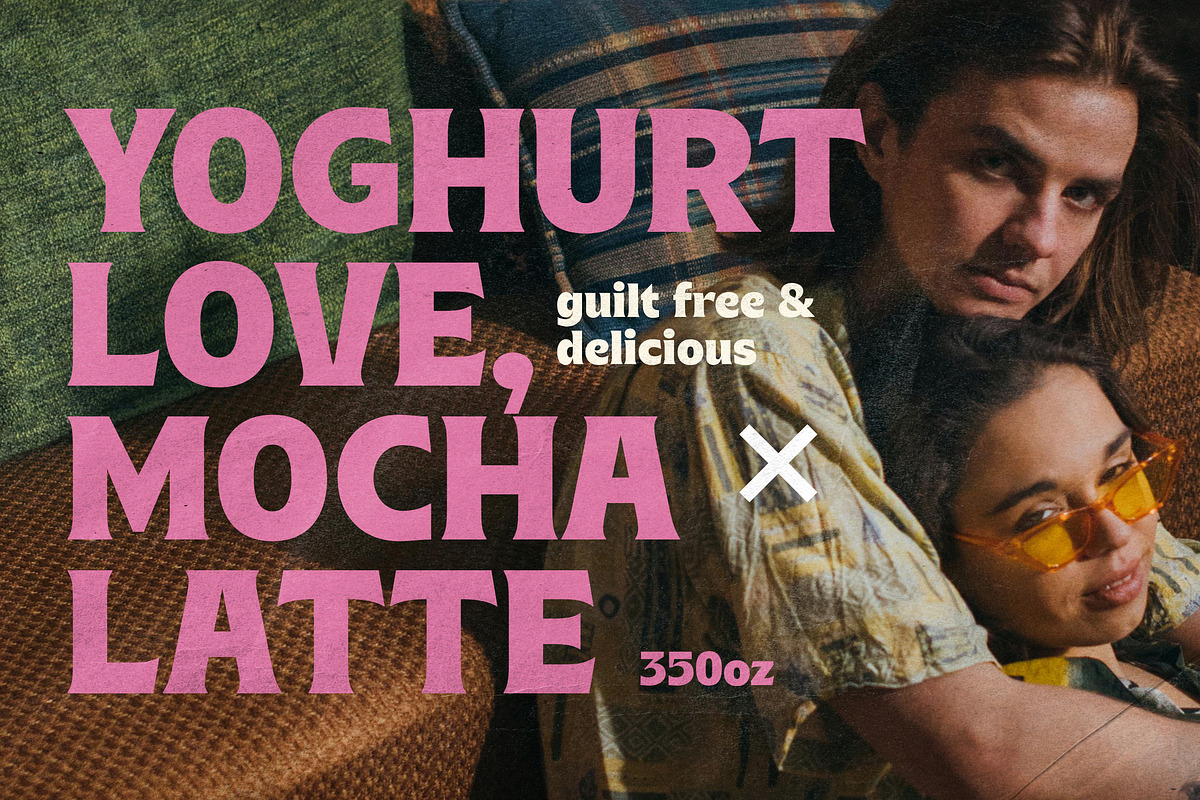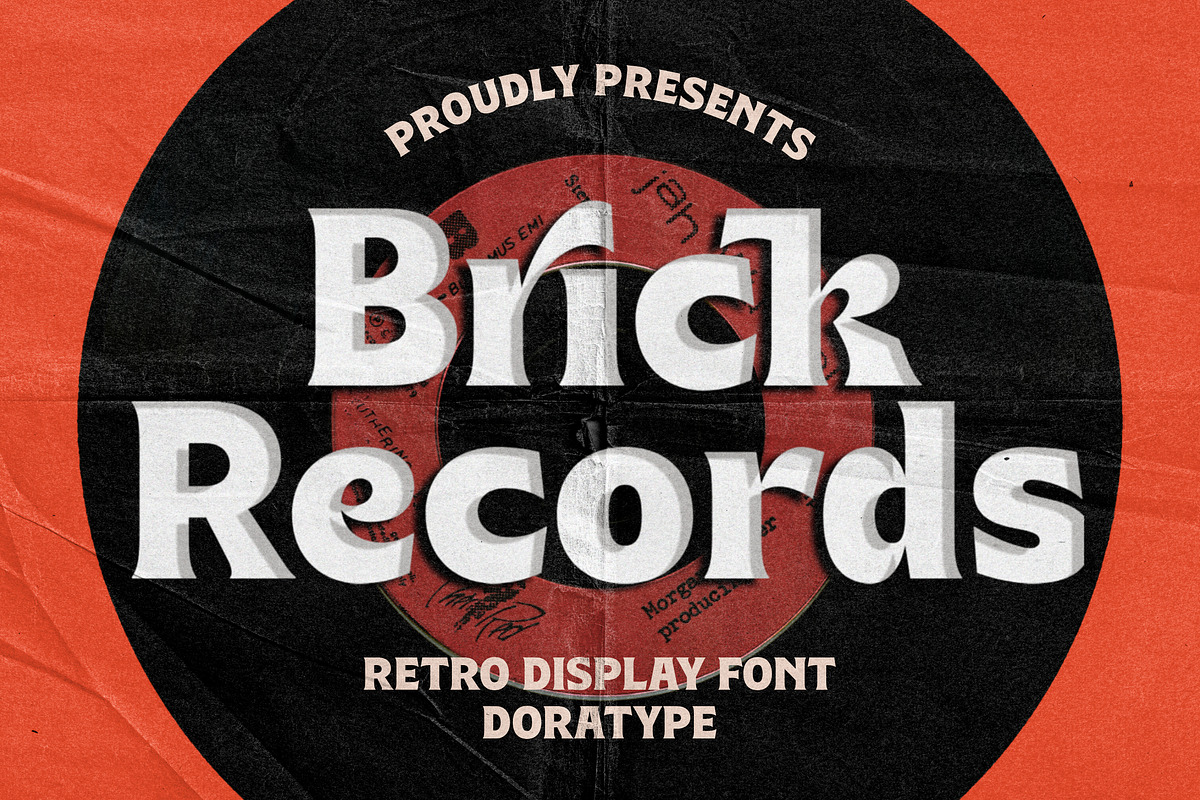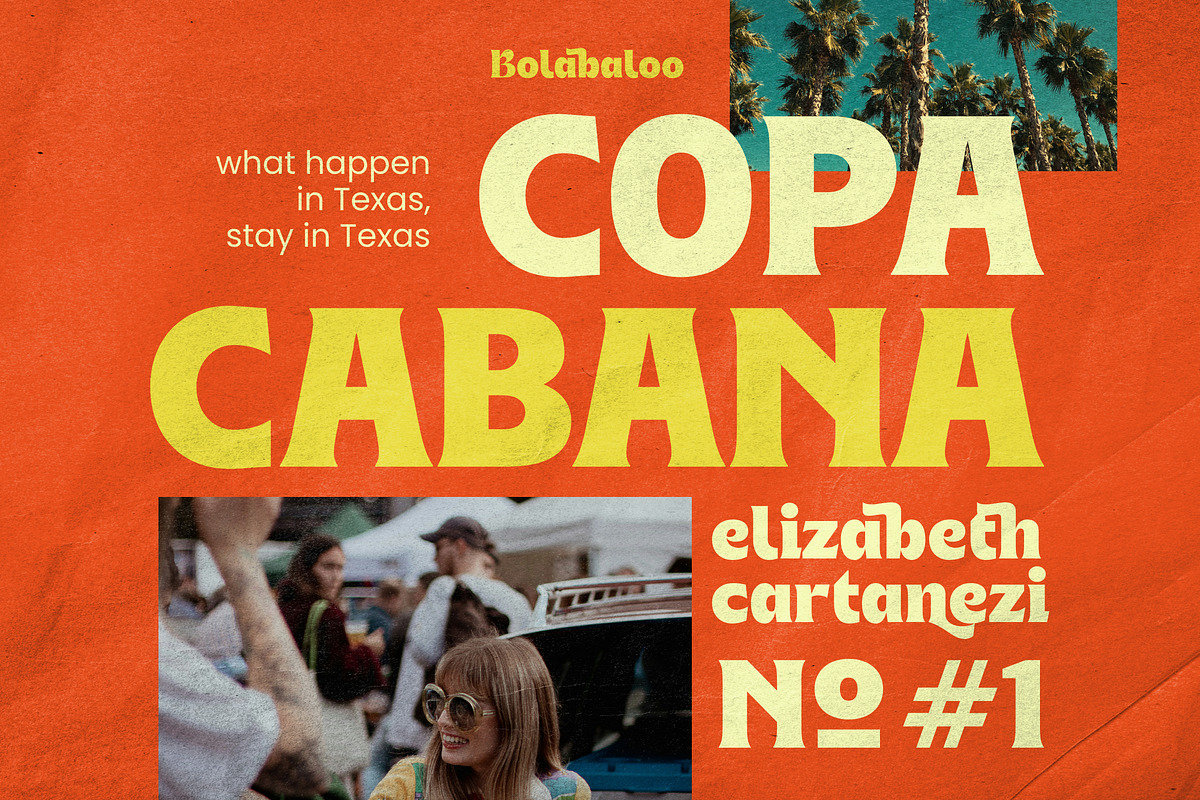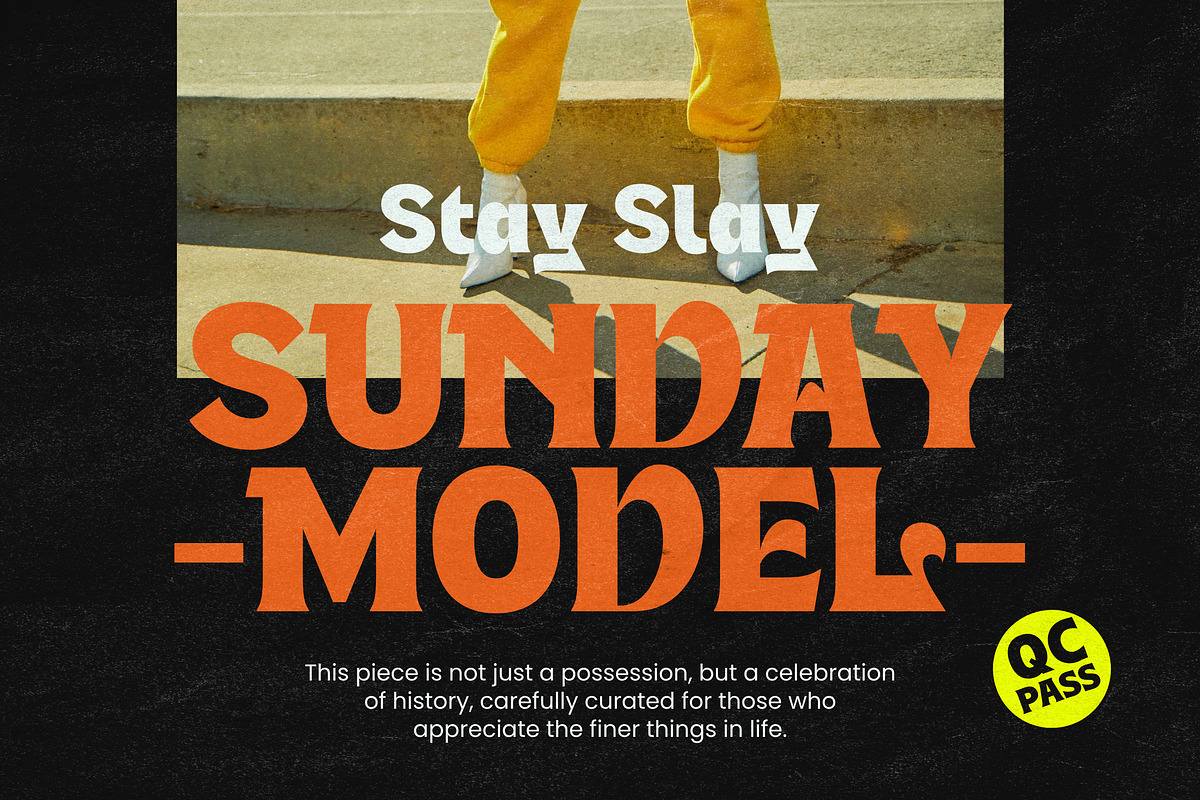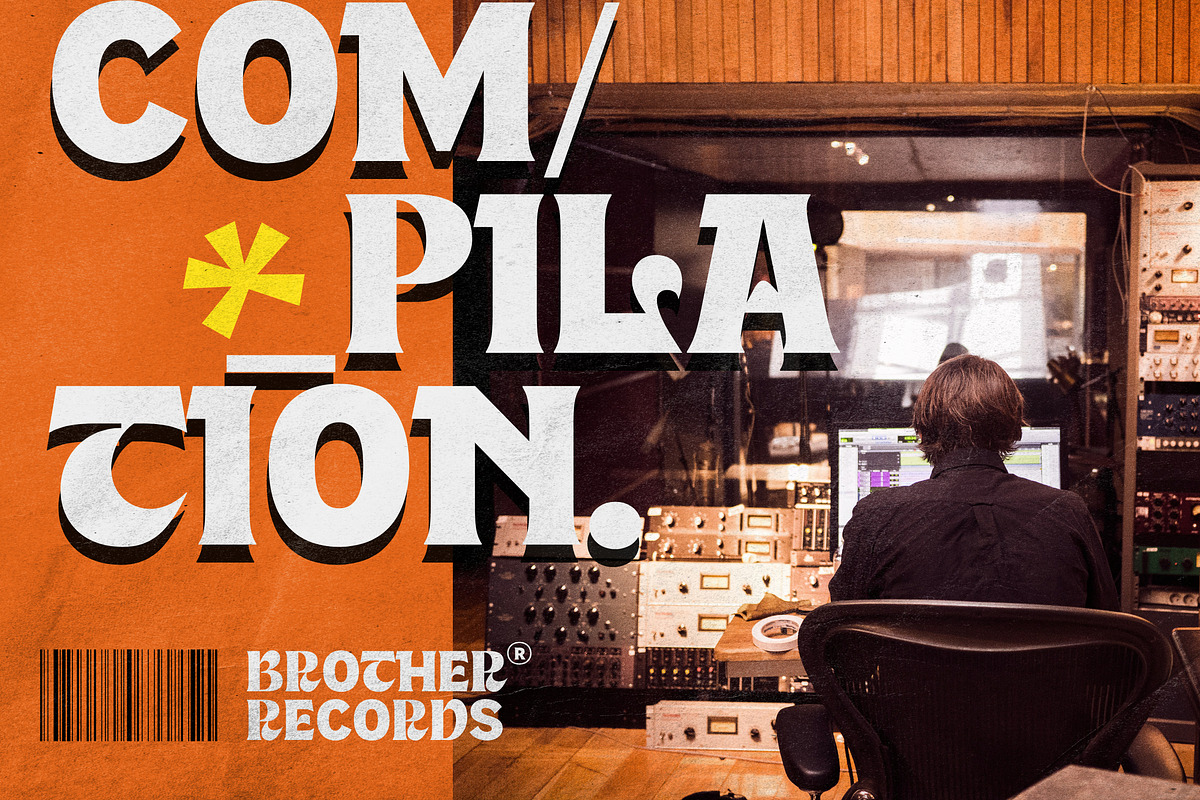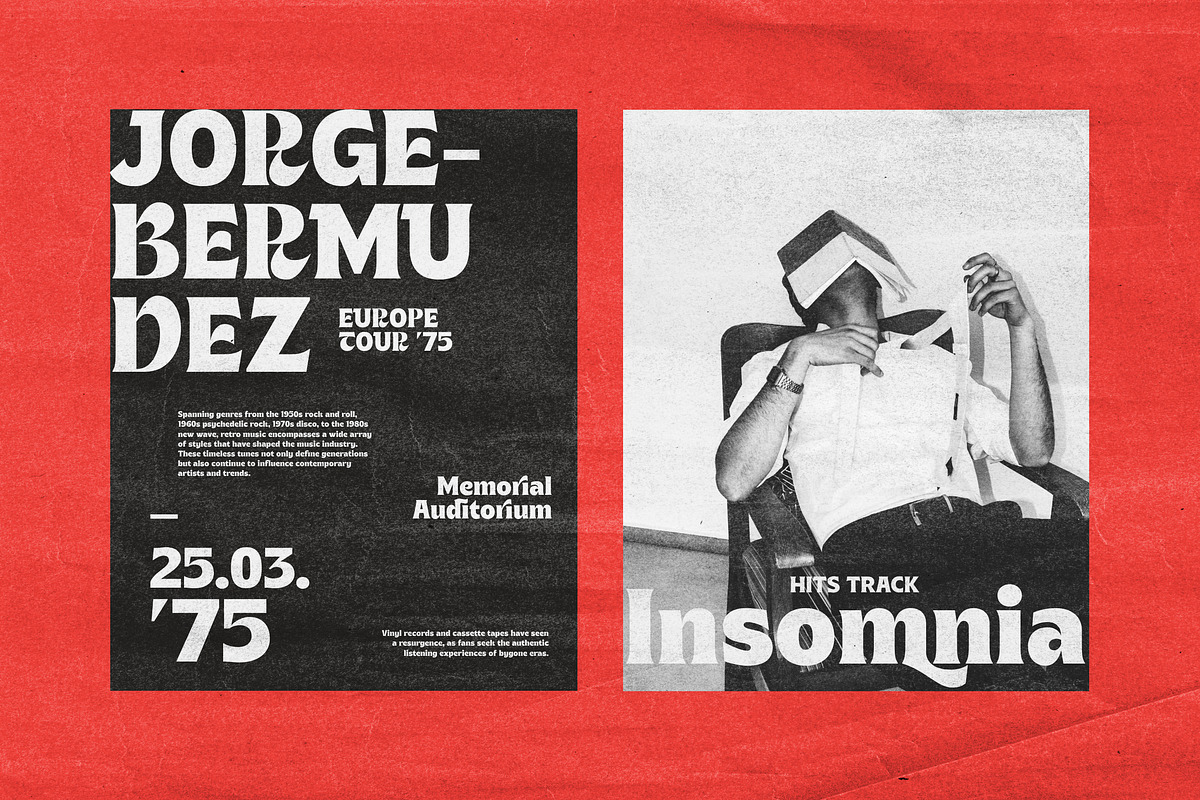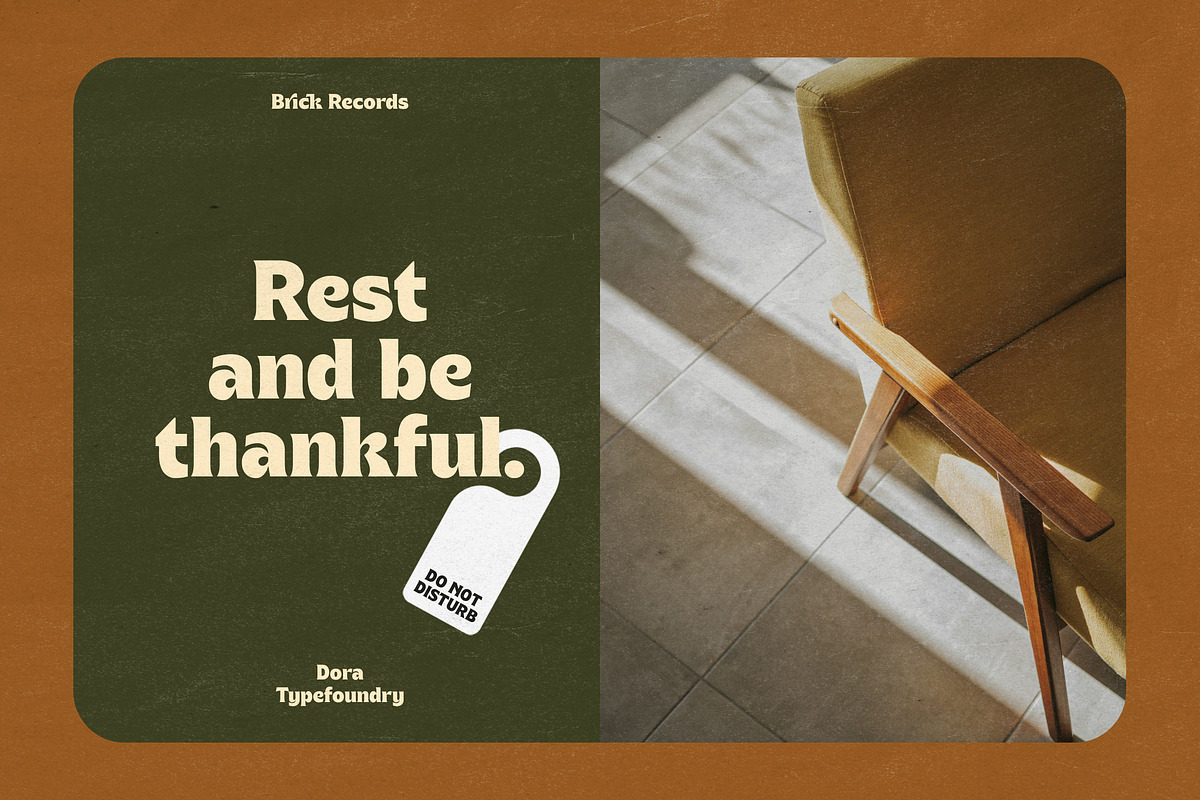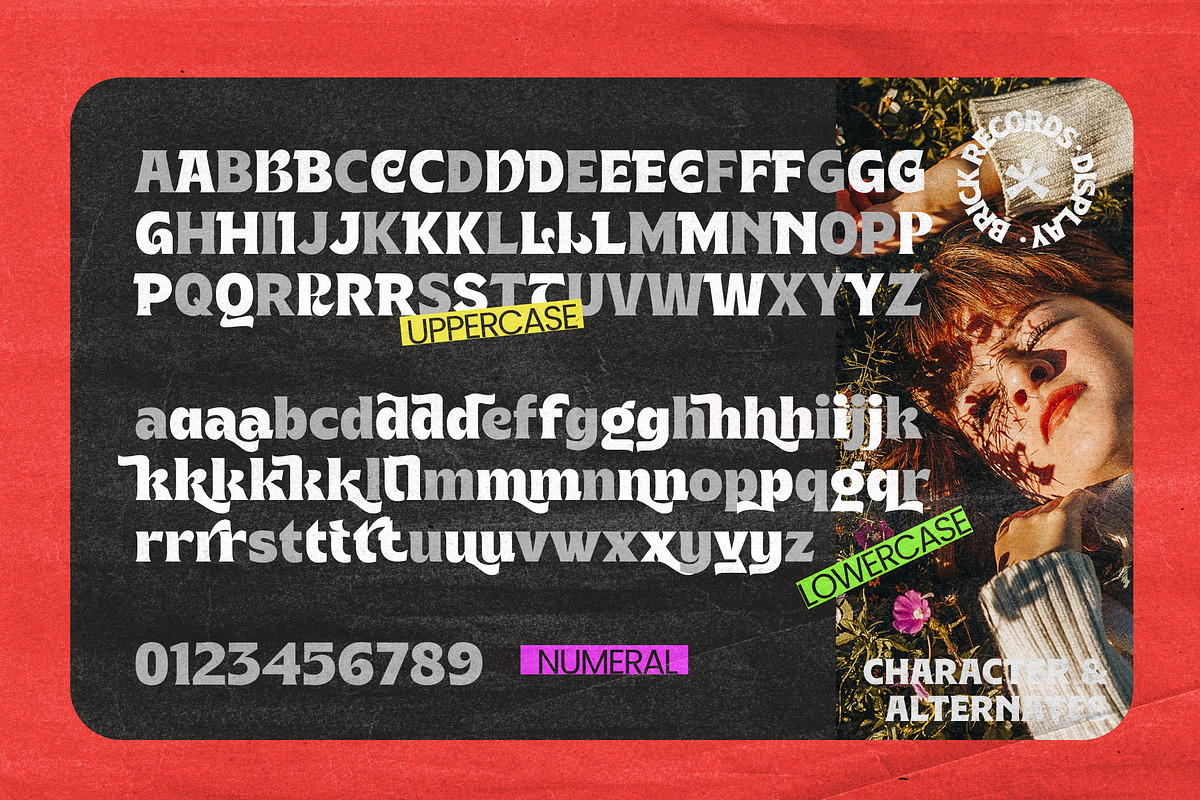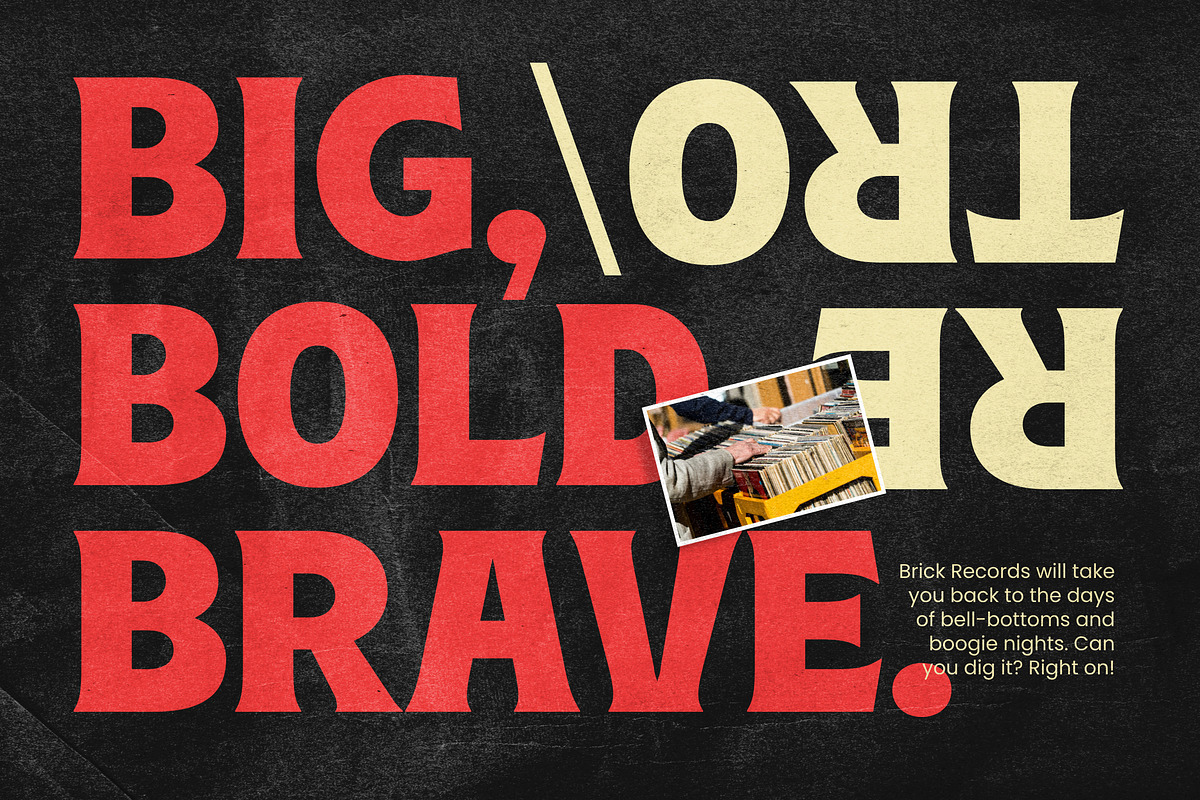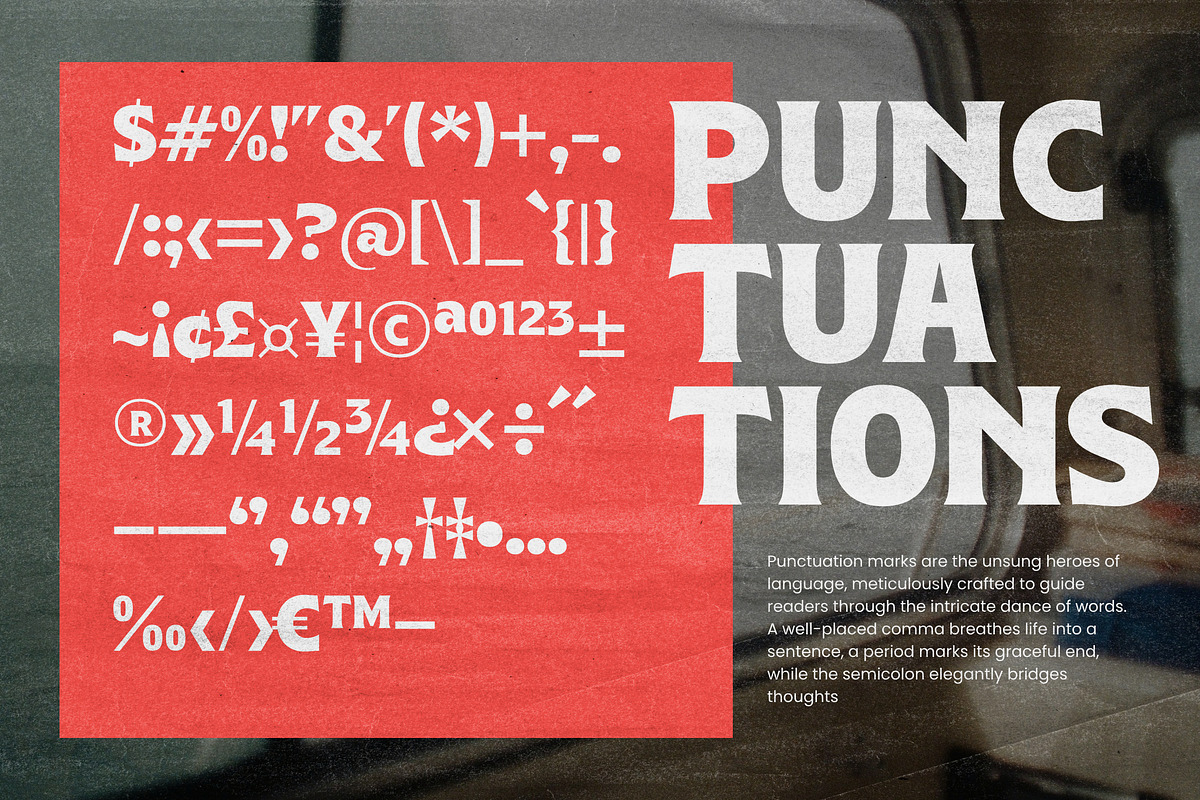
Brick Records - Retro Serif
Brick Records is a bold serif typeface with a vintage and retro look! You'll definitely love this font that gives off a sophisticated feel even with all its playfulness. equipped with ligatures, the alternative becomes an attractive option. Brick Records is perfect for branding, magazines, web, broadcast, packaging, apparel print, branding, titling, headlines and more.
- 85 Alternates
- 35 Ligatures